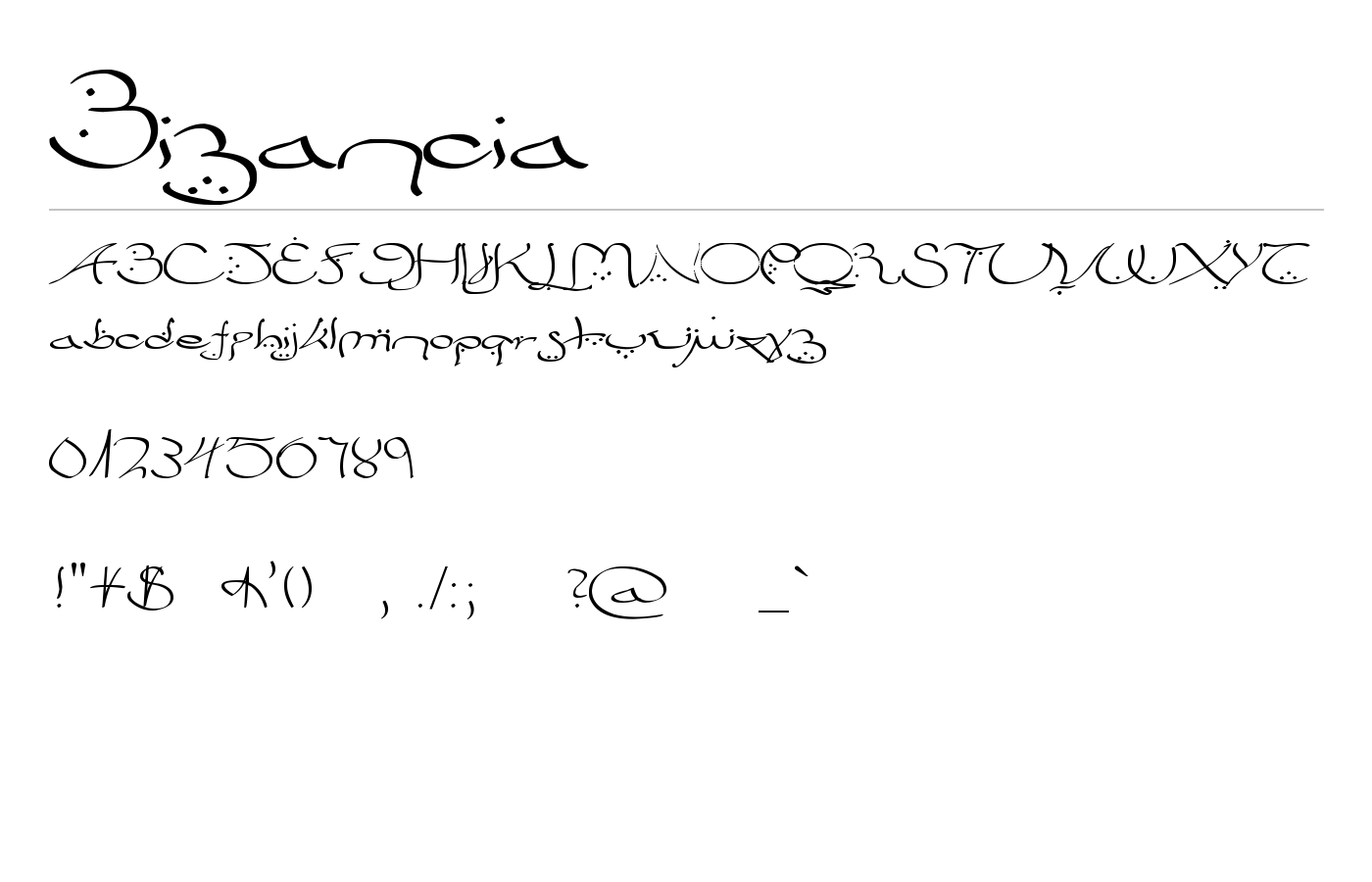
Bizancia is a delicate, handwritten script font with a whimsical and artistic flair, characterized by thin, flowing strokes and playful dotted accents. Its unique letterforms and elegant curves give it a charming, creative personality, making it ideal for artistic branding, invitations, and decorative design work that seeks a personal and imaginative touch. This font works best in contexts where expressive and distinctive typography is desired to evoke creativity and individuality.
Bizancia Font
About Bizancia Font